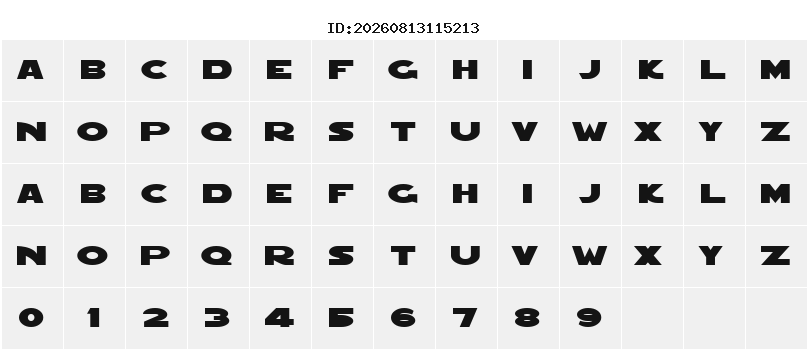
RedFive Preview
• Font Name: RedFive
• Full Font Name: RedFive
• PostScript Name: RedFive
About RedFive.ttf
RedFive.ttf is a modern, elegant sans-serif font designed for ultimate readability and visual harmony. Perfect for branding, headlines, web design, and print materials.